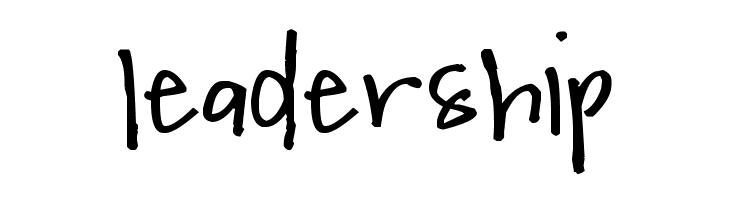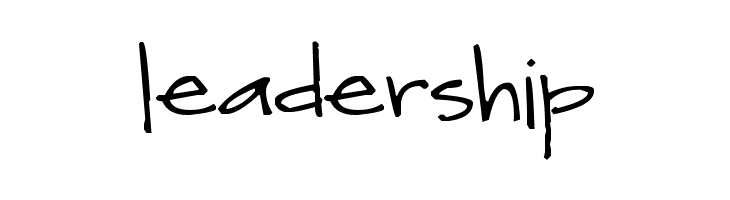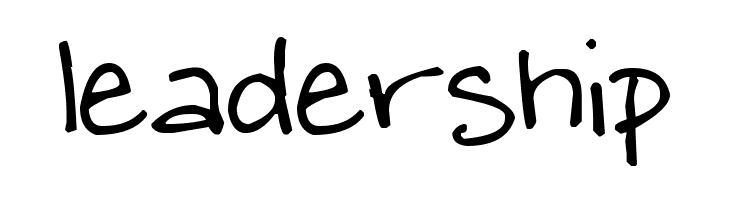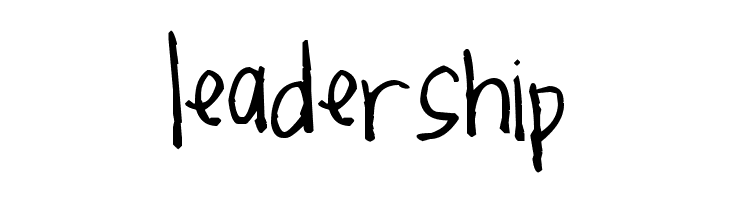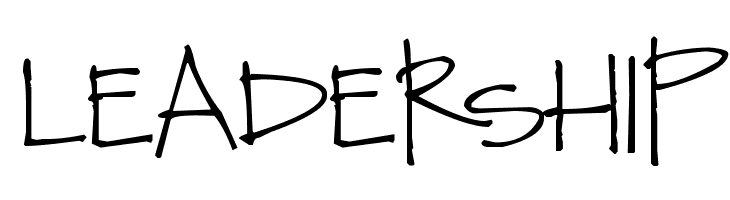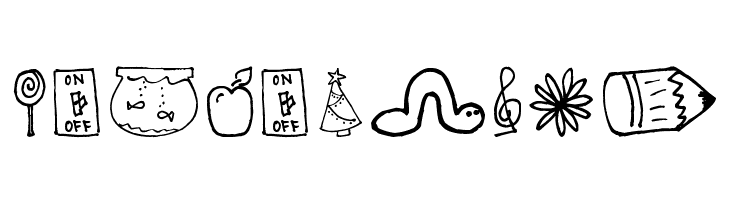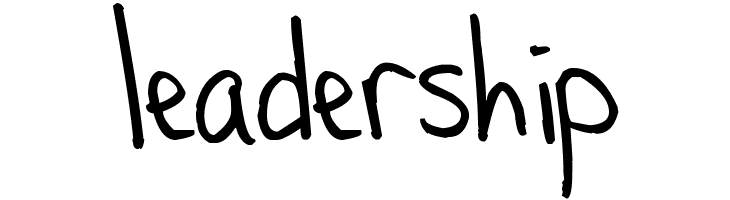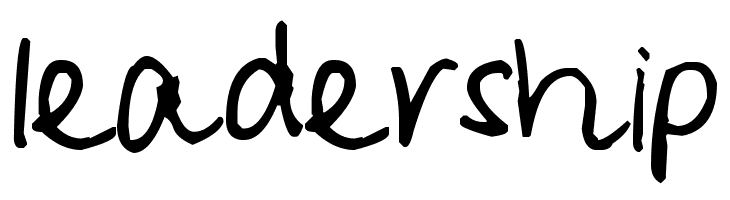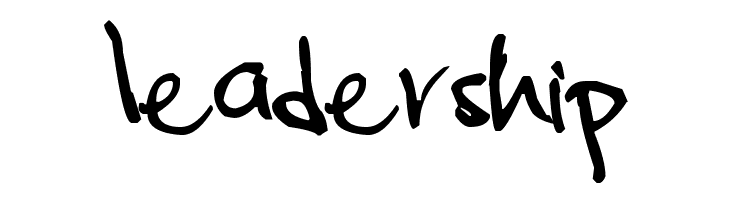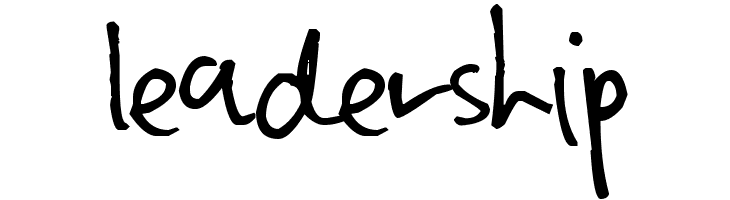
A bold, dynamic handwritten font with expressive strokes.
A playful, handwritten font with a casual, doodle-like style.
A playful, casual handwritten font with irregular strokes and a whimsical appearance.
A playful doodle font with seasonal and thematic illustrations.
A playful, casual handwritten font with an organic flow and quirky character shapes.
A playful, handwritten font with bold, rounded strokes and a casual vibe.
A casual, handwritten font with a playful and informal style.
A bold, Gothic-inspired font with sharp, angular lines and high contrast.
A playful, handwritten font with a whimsical and fluid cursive style.
A playful, casual handwritten font with uneven strokes and a friendly vibe.
A playful, handwritten font with a whimsical and informal style.
A playful, whimsical handwritten font with a casual and friendly style.
A casual, handwritten font with a playful and informal style.
A playful, handwritten font with bold, expressive strokes and a casual style.
A playful collection of hand-drawn doodles with a whimsical and casual style.
A whimsical, hand-drawn collection of playful doodles and illustrations.
A playful, handwritten font with dynamic strokes and a casual style.
A playful, handwritten-style font with tall, narrow characters and a whimsical appearance.
A playful, casual handwritten font with uneven strokes and a lively appearance.
A playful and casual handwritten font with a natural, flowing style.
A playful, handwritten font with bold strokes and a casual vibe.
A playful, informal handwritten font with a casual and friendly vibe.
A playful, casual handwritten font with a dynamic and lively feel.
A casual, playful handwritten font with fluid strokes and a dynamic style.
A playful, handwritten font with irregular, spontaneous strokes.
A playful, casual handwritten font with irregular strokes and a spontaneous feel.
A playful, casual handwritten font with a relaxed and friendly style.
A playful, handwritten font with bold, irregular strokes and a casual vibe.
A playful, handwritten font with rounded, informal letterforms.
A playful, casual handwritten font with dynamic strokes.
A playful, casual handwritten font with irregular strokes and a dynamic feel.
A playful handwritten font with irregular strokes and a casual, friendly appearance.
A playful, handwritten font with bold strokes and a casual style.